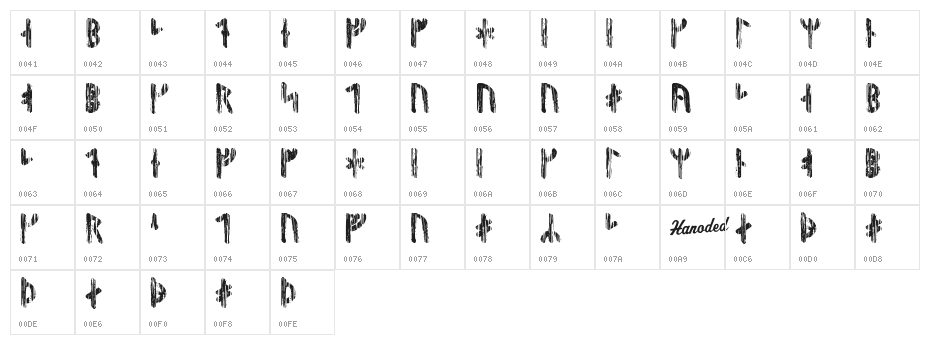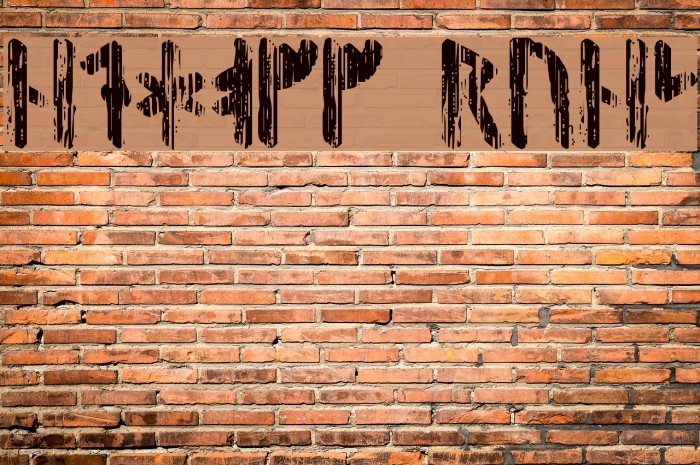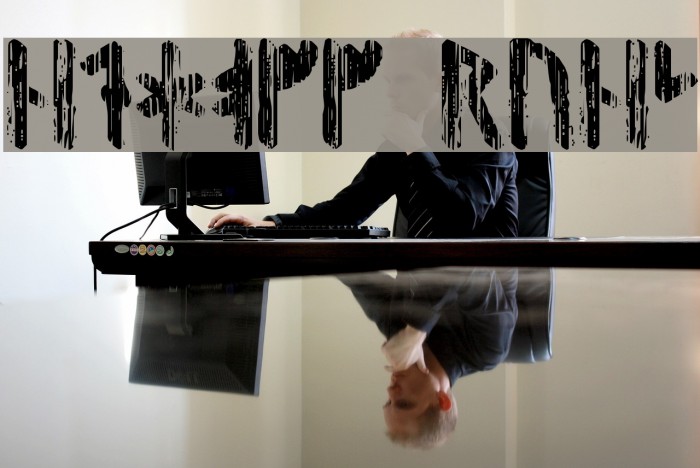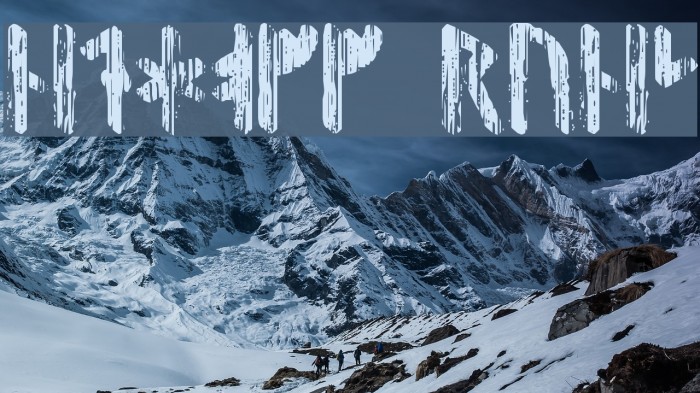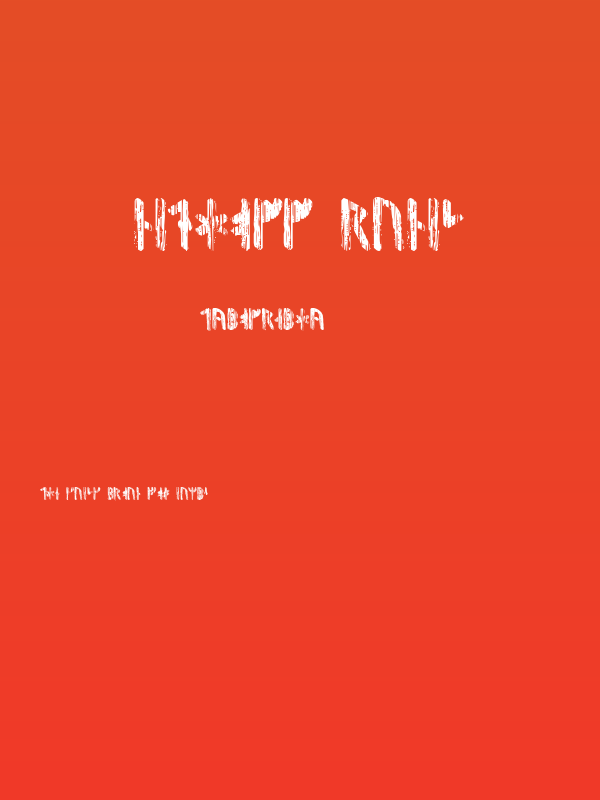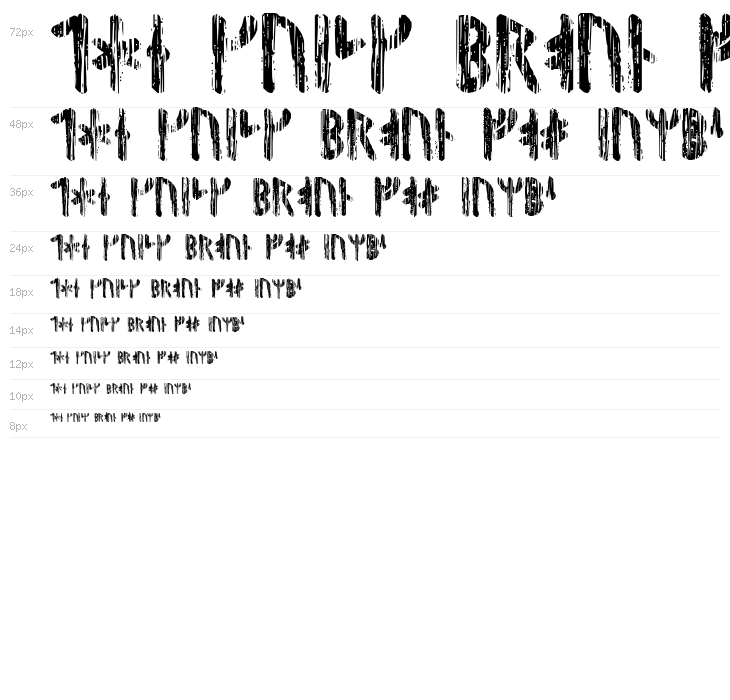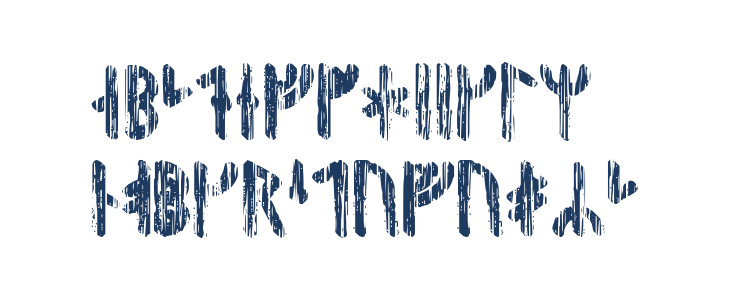
Nidhogg Runic Font
Nidhogg Runic Description
This font features a rugged, distressed appearance reminiscent of ancient runic inscriptions. The characters are bold and heavily textured, giving a sense of age and mystery. Each letter is uniquely crafted with uneven edges and a weathered look, suggesting a historical or mythical theme. The font's style is highly decorative, making it suitable for projects that require a strong visual impact. Its distinctive design is ideal for creating a sense of antiquity and intrigue.
| Proposed Projects | Ideal for fantasy-themed designs, game titles, movie posters, or any project requiring an ancient or mythical aesthetic. |